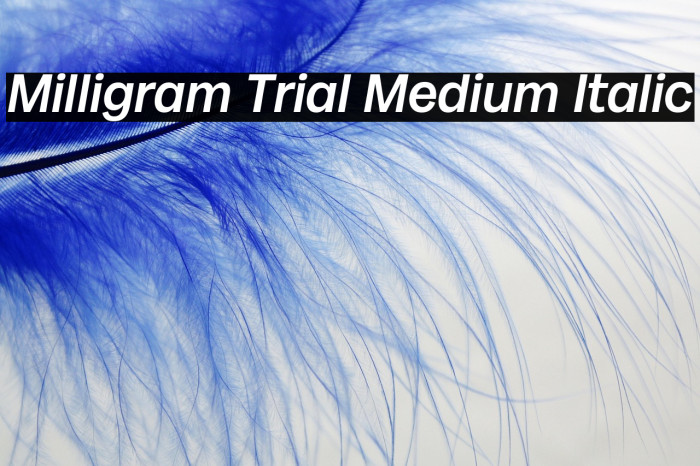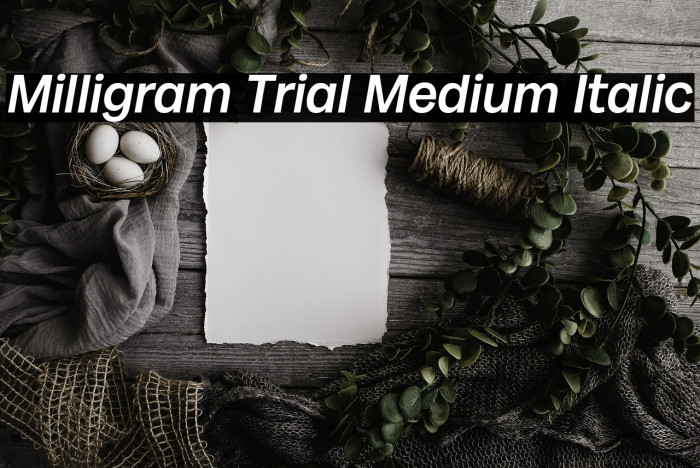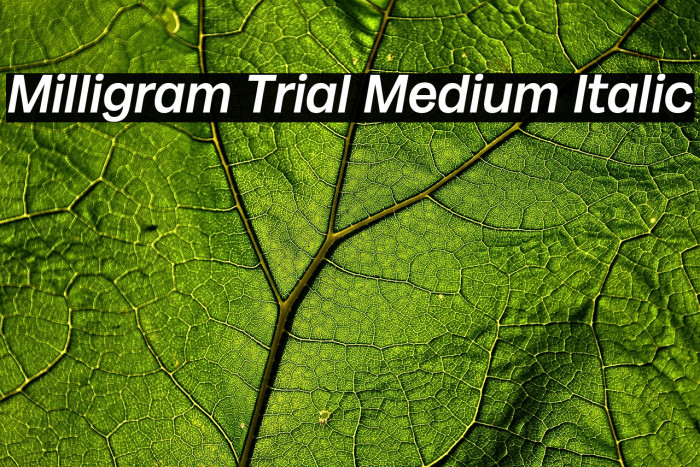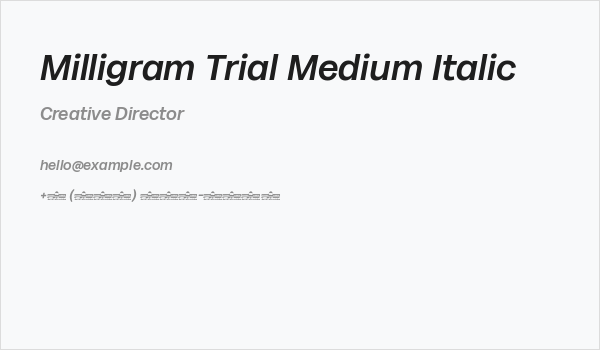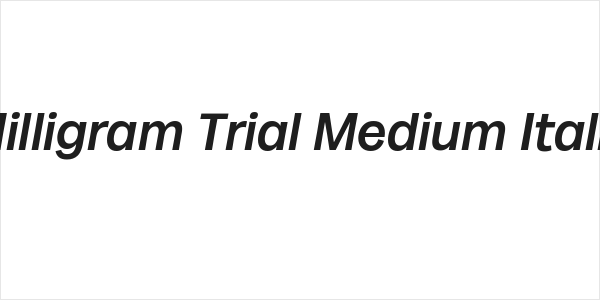
Milligram Trial Medium Italic Font
Milligram Trial Medium Italic Description
This font exhibits a sleek, modern design with a clean and streamlined appearance. The italic style adds a dynamic and forward-leaning quality, enhancing its contemporary feel. Each character is crafted with precision, maintaining a consistent medium weight that balances readability with style. The sans-serif nature ensures a minimalist aesthetic, free from unnecessary embellishments, making it versatile for various applications. The character spacing is normal, providing a harmonious flow between letters. The font's contrast is low, with uniform stroke thickness throughout, contributing to its smooth and polished look.
| Proposed Projects | Ideal for branding, advertising, digital interfaces, and editorial design. |